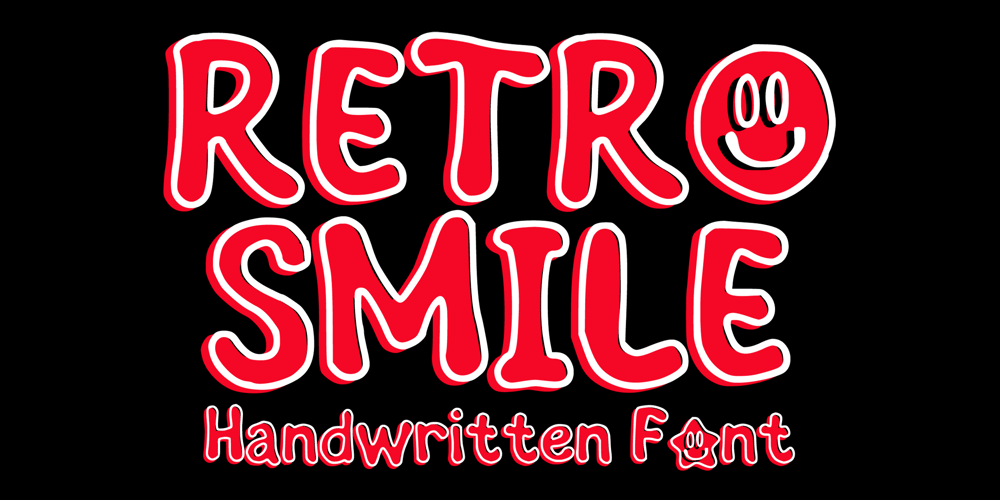
Retro Smile
Retro Smile font
Retro Smile Font Family was designed by Gabriel Valentinus and published by Mvmet. Retro Smile contains 2 styles and family package options. Retro Smile is a cool font for your fun displays. It comes with 2 versions (filler and outline). The fun and happy vibe will be there when you use it. You can use it for anything ranging from t-shirts, other merchandise, kids’ book designs, and greeting cards to stickers and posters, or anything that needs a casual touch. Fall in love with its incredibly versatile style, and use it to create lovely designs!